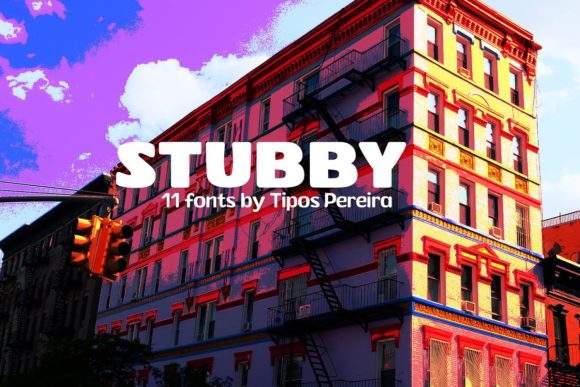
Embark on a whimsical adventure with Stubby Font, a captivating display font that exudes charm and playfulness. Let your designs radiate a sense of cozy comfort with this beautifully crafted typeface.
Stubby Font offers an irresistible blend of sophistication and approachability, making it the perfect choice for designers seeking to create designs that speak to the heart. Its delightful curves and soft edges evoke a sense of warmth and friendliness that resonates with audiences of all ages.
With Stubby Font, you have the power to transform ordinary projects into extraordinary creations. Its versatile nature shines in various design applications, whether it's eye-catching logos, playful posters, or enchanting invitations. Stubby Font effortlessly elevates any project, adding a touch of whimsy that captivates and delights.
Let your imagination run wild as you explore the endless possibilities of Stubby Font. Embrace its unique character to craft designs that spark joy, laughter, and a sense of lighthearted fun. Whether you're a seasoned designer or just starting, Stubby Font will inspire you to create designs that leave a lasting impression.